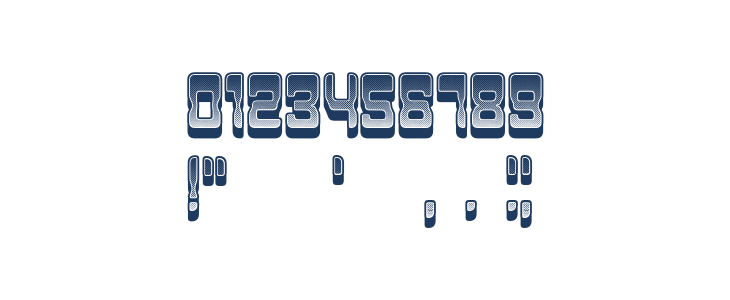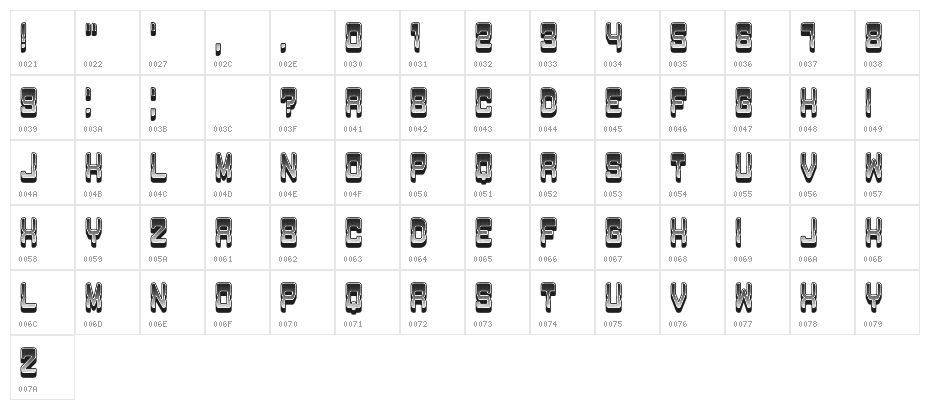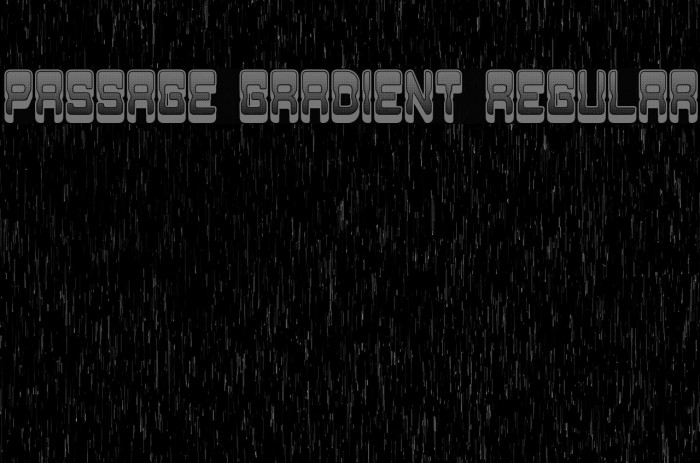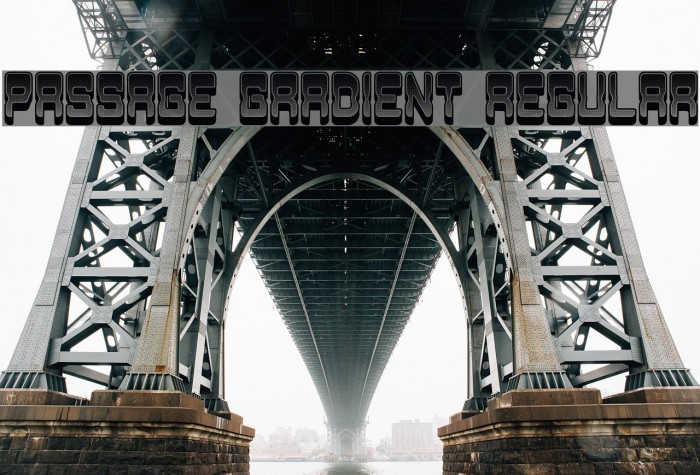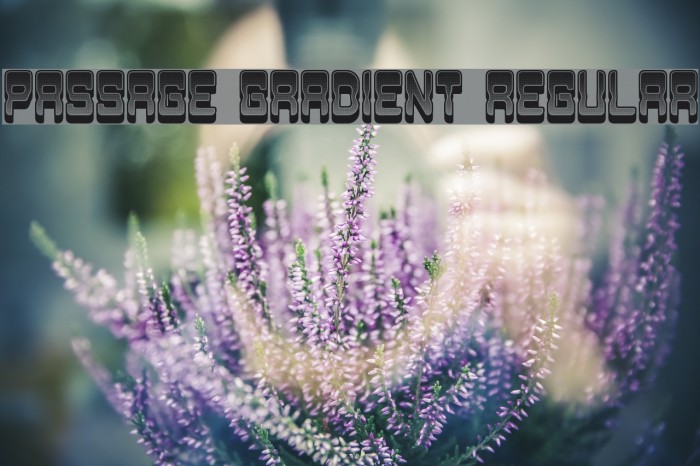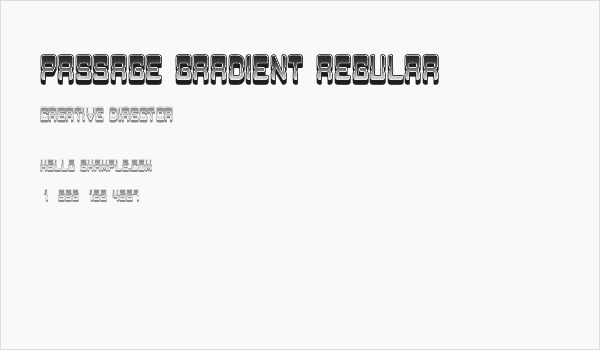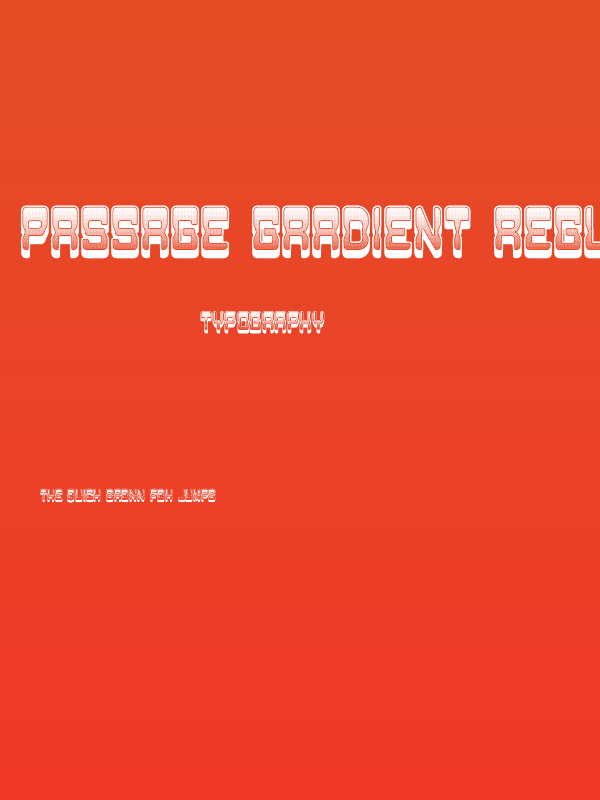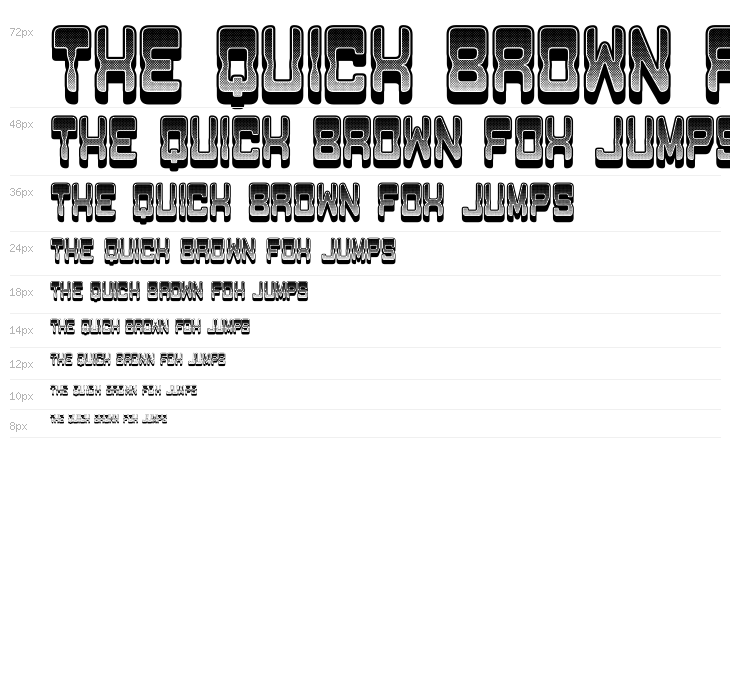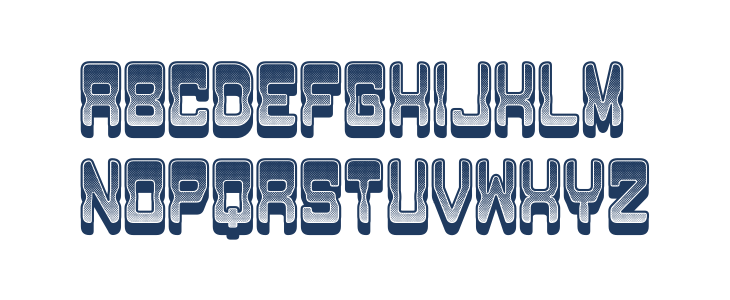
Passage Gradient Regular Font
Passage Gradient Regular Description
This font features a bold, three-dimensional appearance with a unique gradient effect that gives it a striking, modern look. The characters are blocky and robust, with a distinct shadow that enhances the 3D illusion. The gradient within each letter transitions smoothly, adding depth and visual interest. The font is highly decorative, making it ideal for eye-catching designs. Its geometric structure and bold presence make it suitable for projects that require a strong visual impact. The font includes uppercase letters, numbers, and a selection of punctuation marks, all maintaining the same stylistic theme.
| Proposed Projects | Ideal for posters, headlines, logos, and any design needing a bold, modern touch. |